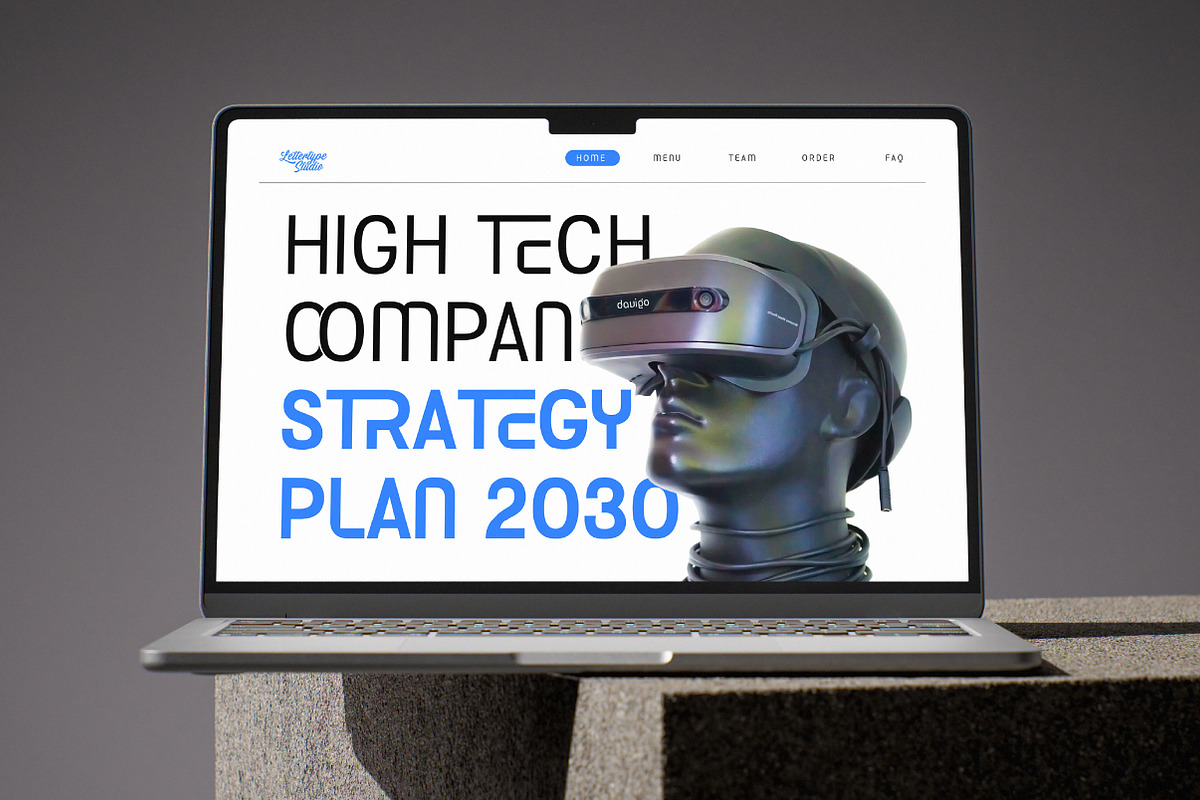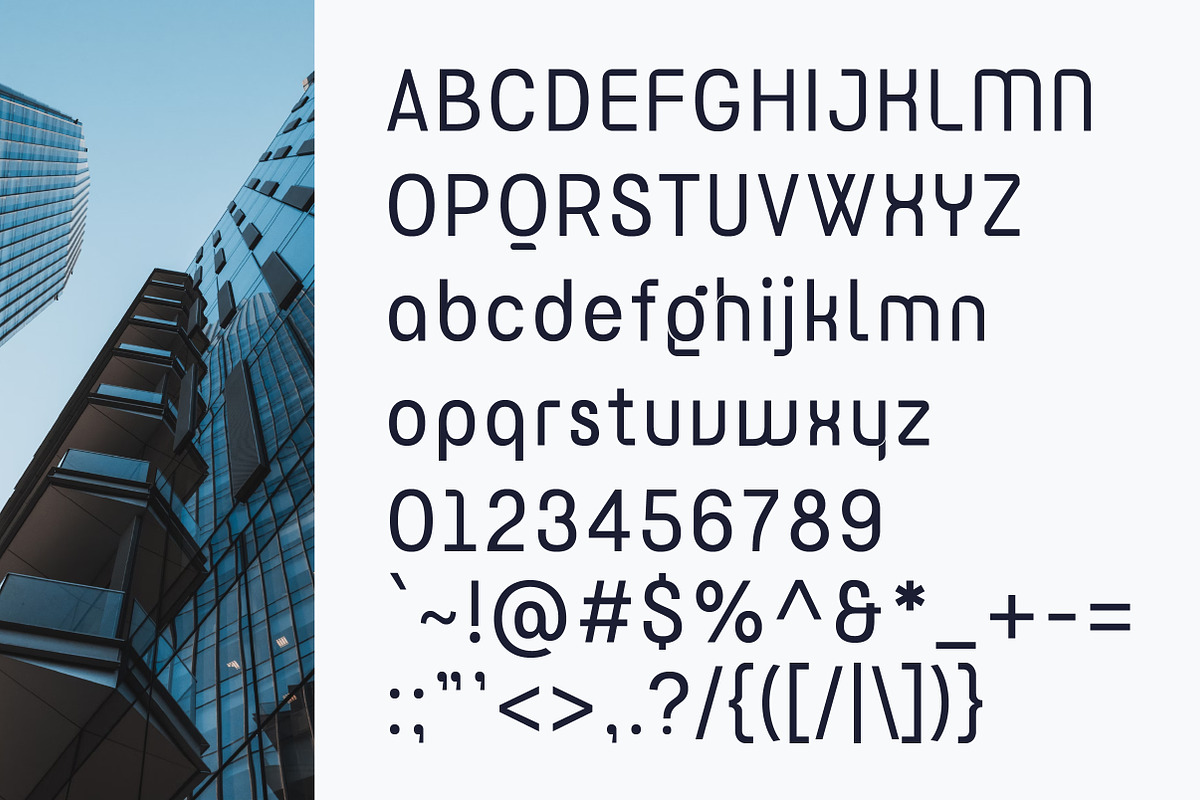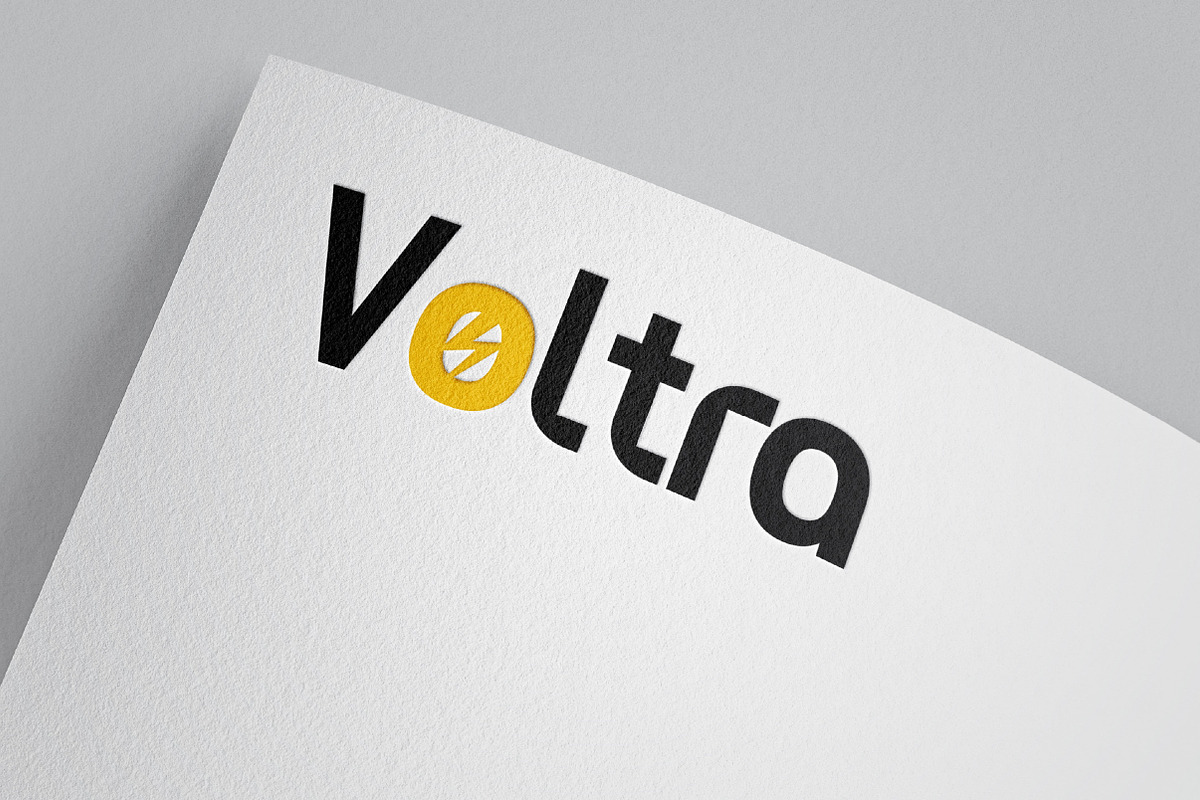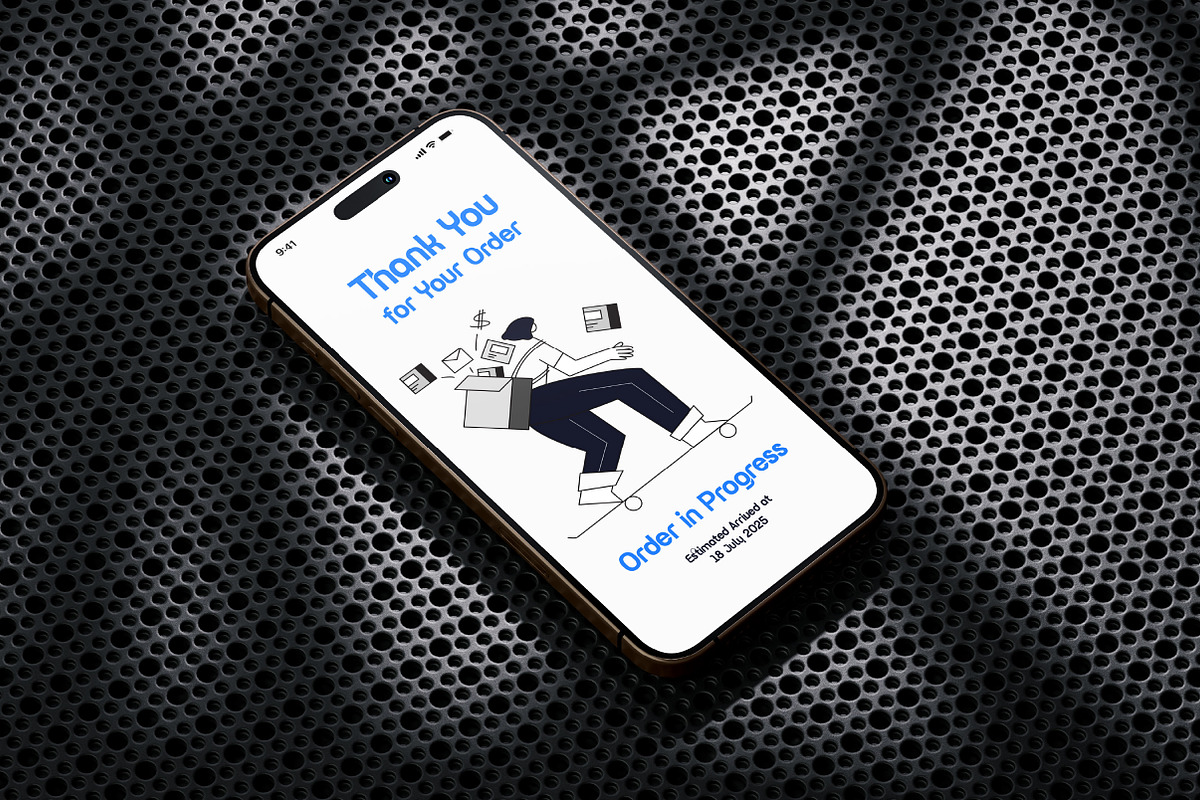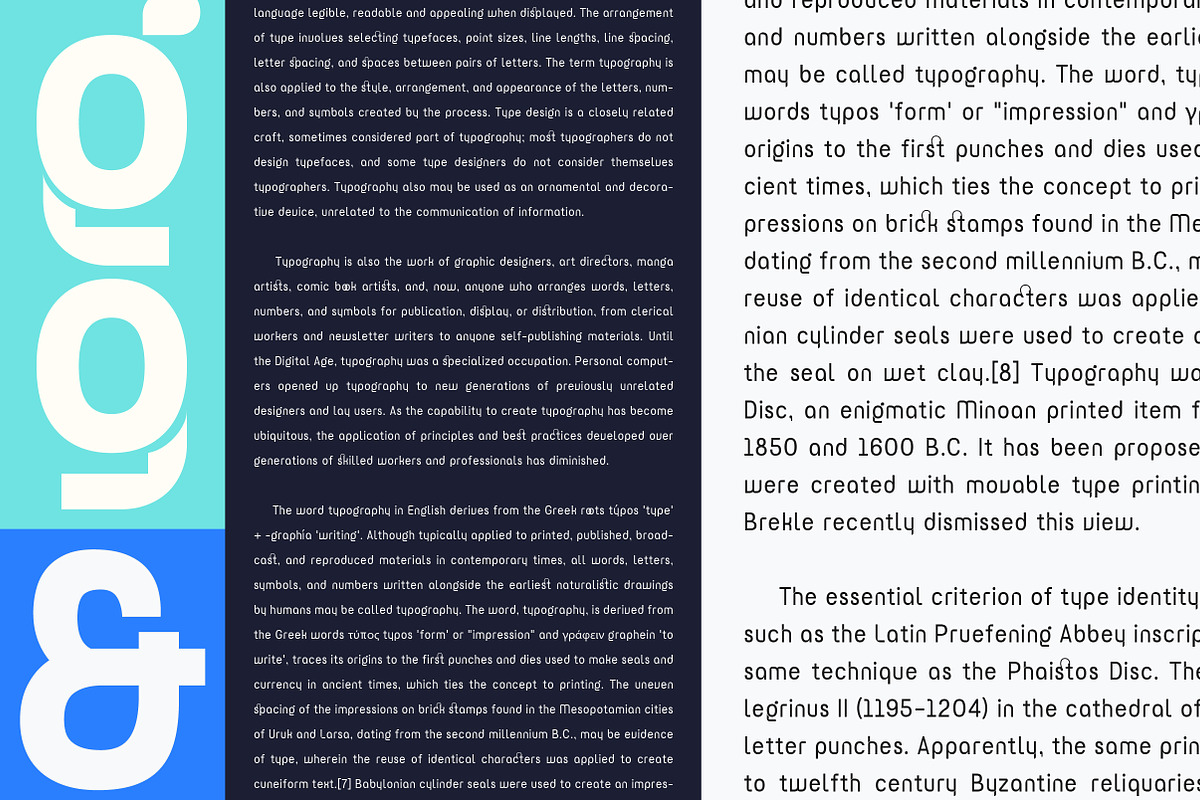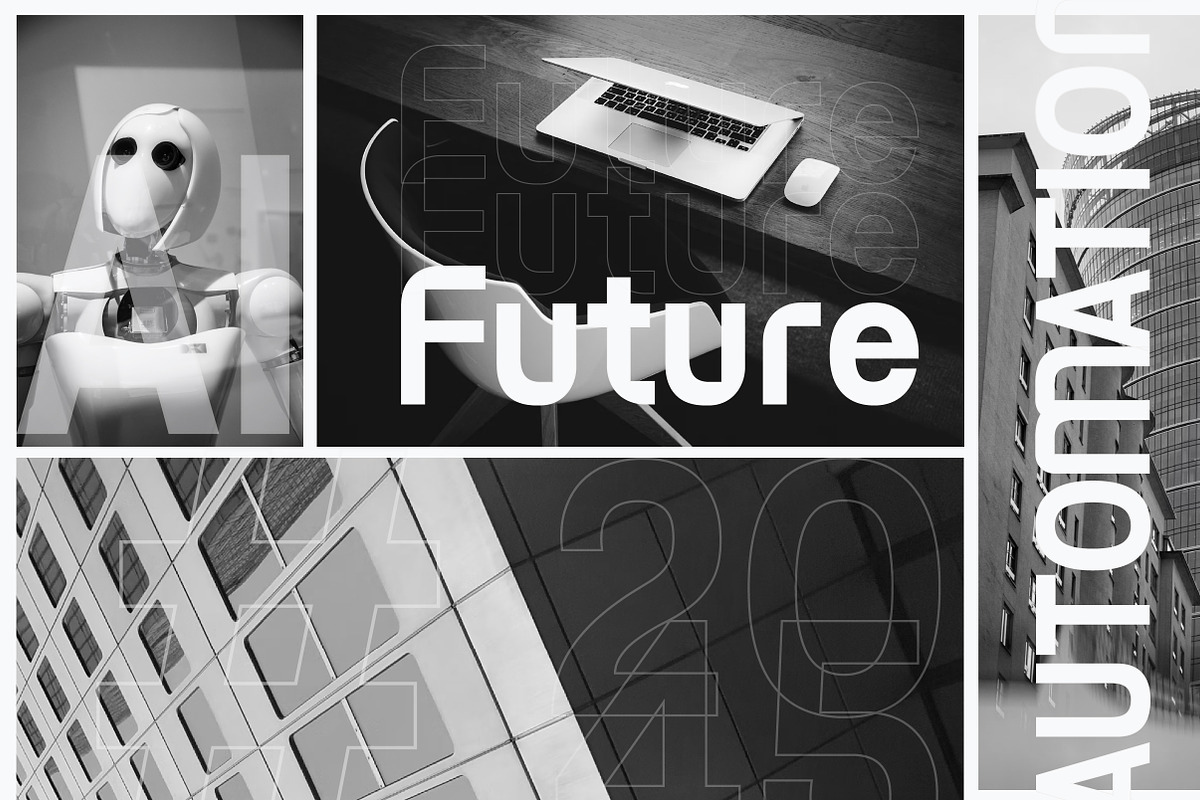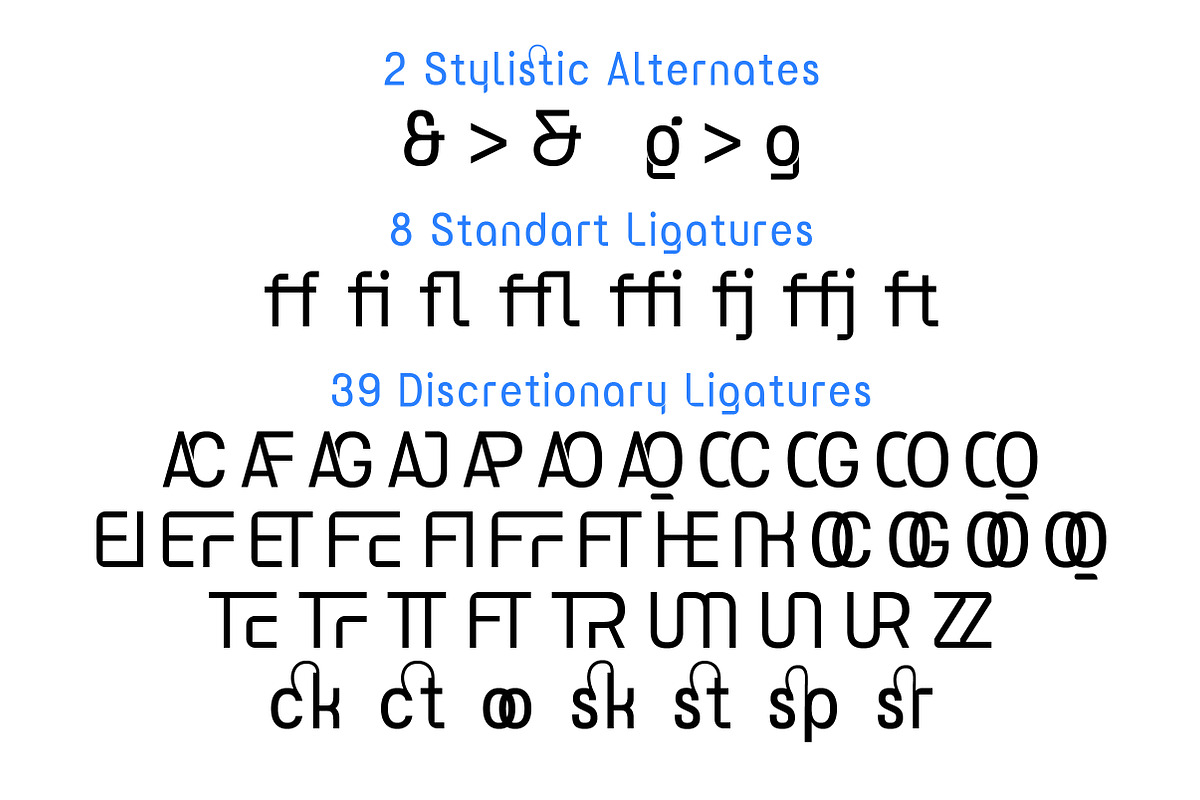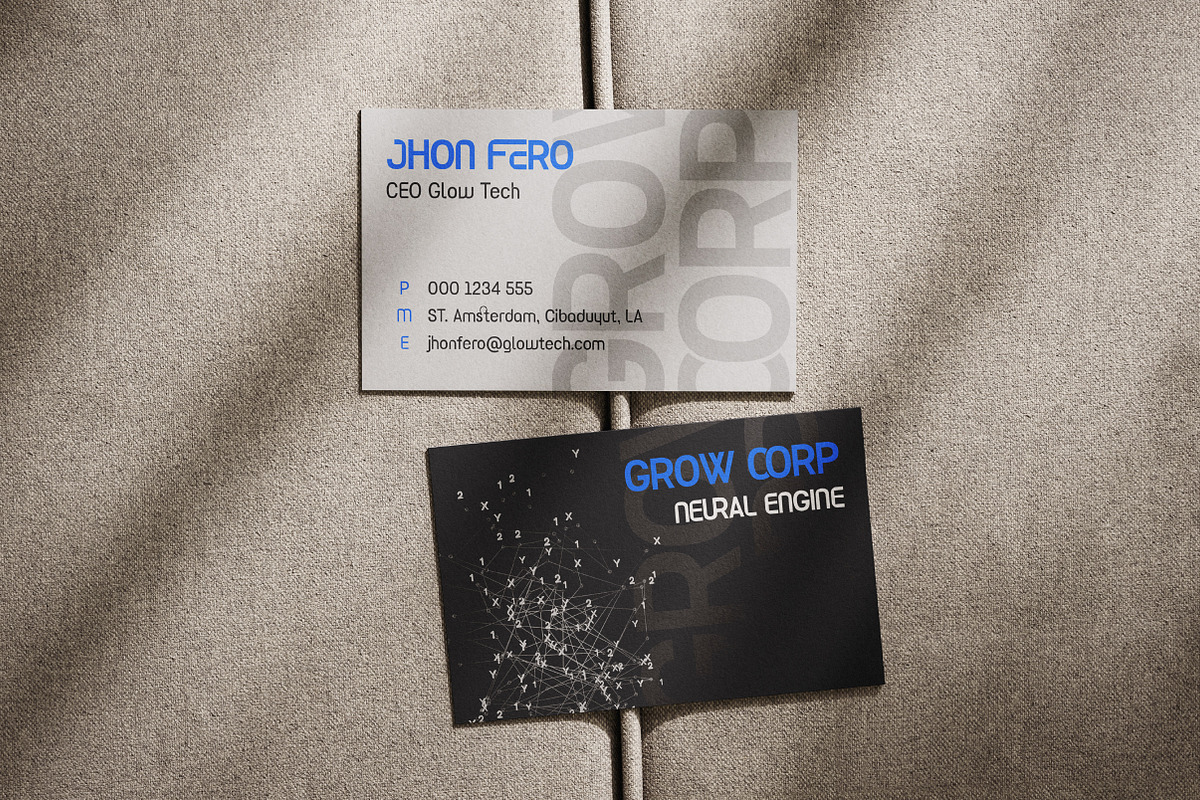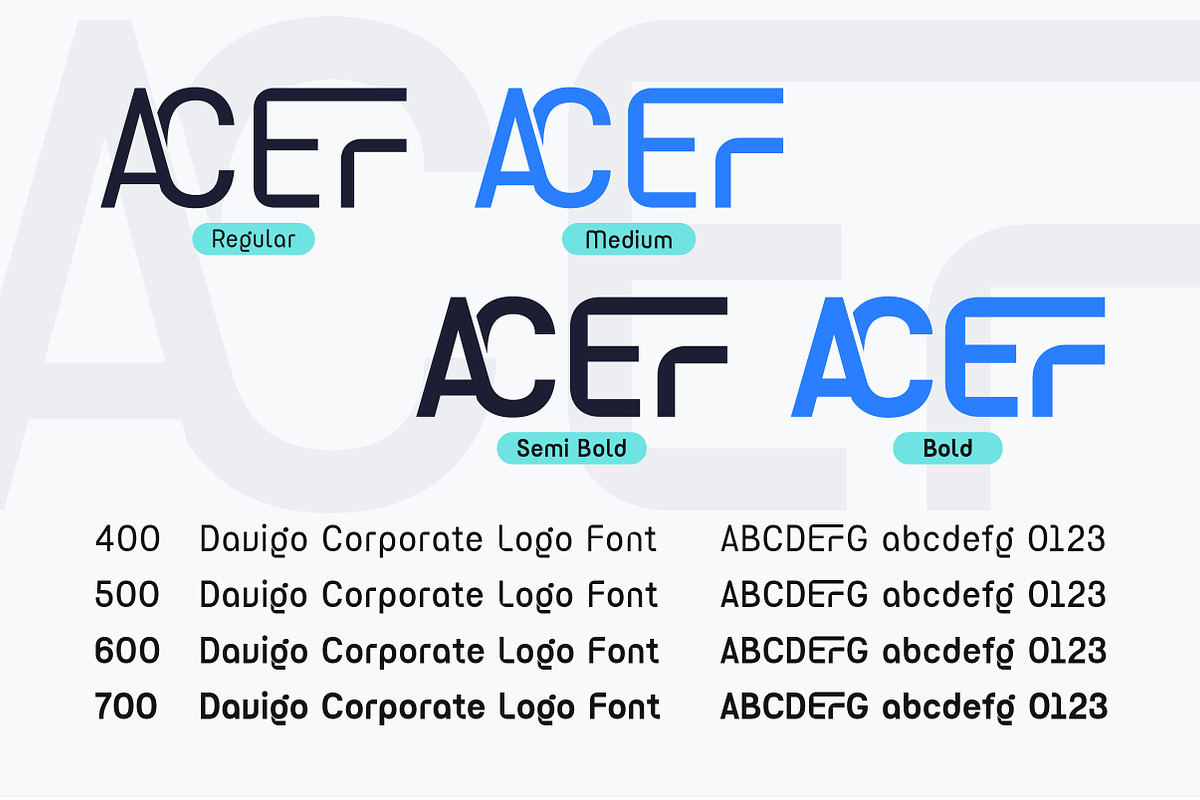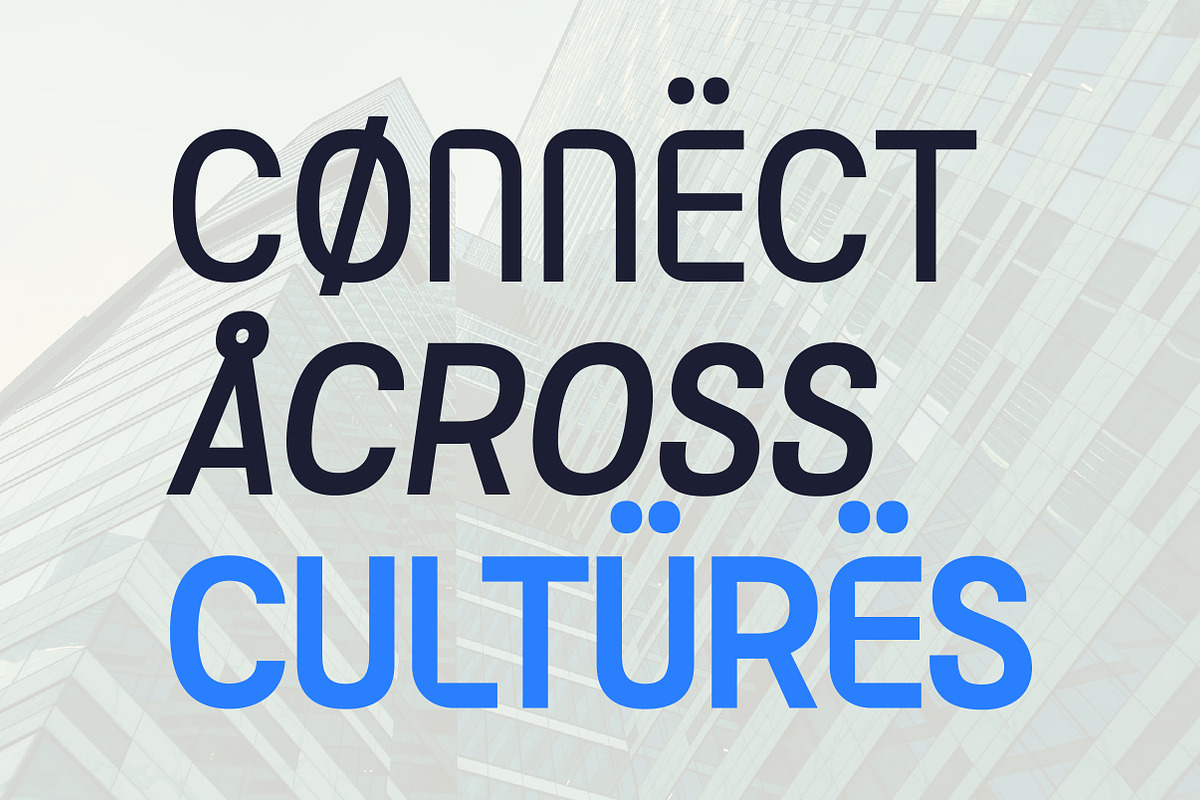
Davigo – Corporate Logo Font
Davigo is a clean, versatile geometric sans-serif font that brings professionalism and clarity to your design projects. Inspired by modern business culture and global branding standards, Davigo features sharp alignment, balanced letterforms, and smooth curves that make it both readable and iconic. It's built for high-impact headlines, powerful branding, pitch decks, logo types, web UI, and more.
This font includes 8 styles, ranging from Regular to Bold and Oblique versions, providing flexibility and control across any layout or platform. With its minimalist elegance and well-calibrated weight system, Davigo works beautifully in both digital and print formats. Whether you're creating a corporate identity, a startup presentation, a clean-tech website, or a financial report, this font ensures your message stands strong and looks refined. It also supports multilingual characters and comes with uppercase, lowercase, punctuation, and numerals — a perfect fit for designers aiming for clarity, simplicity, and impact.
Davigo Features:
- 8 Styles
- Upright & Oblique
- 495 Glyphs Total
- 270+ Languages Support
- Corporate branding, startup identity & professional logos
- Business presentations, pitch decks & company profiles
- Web UI/UX, apps & tech product interfaces
- Editorial layouts, reports & minimalist marketing materials
- Clean packaging, posters & geometric display design